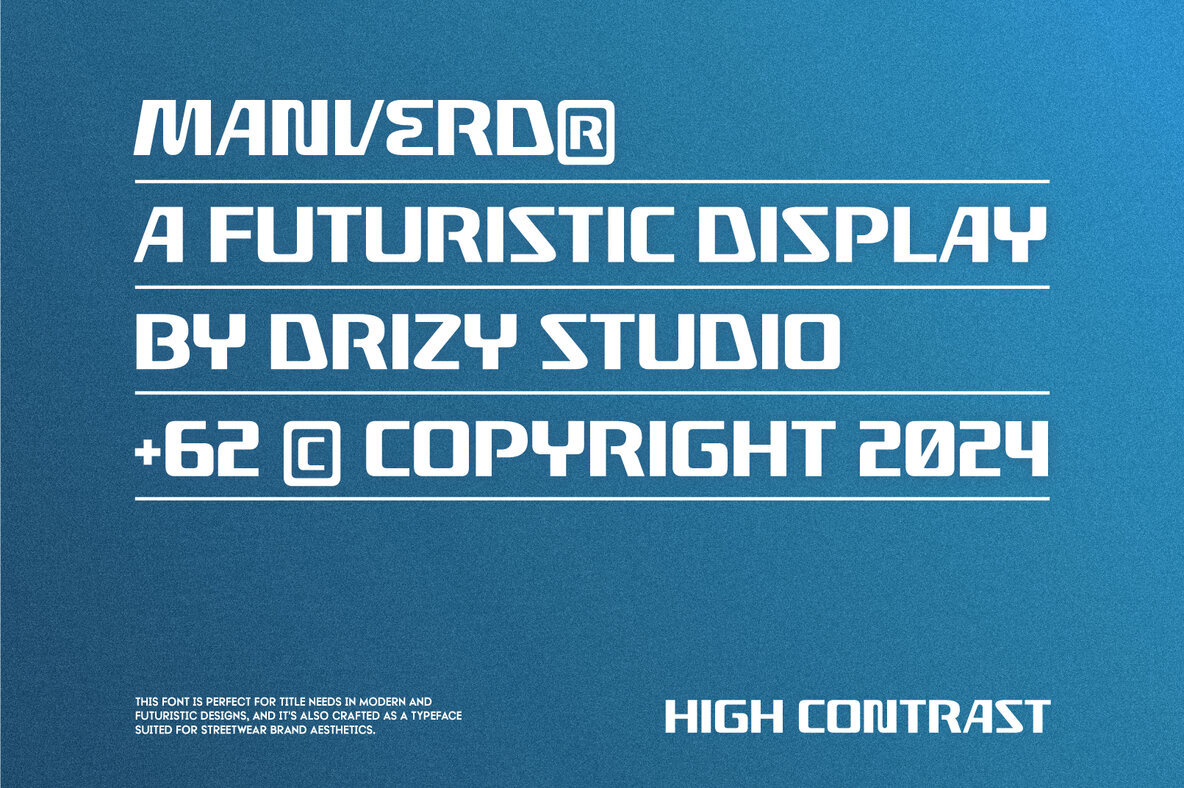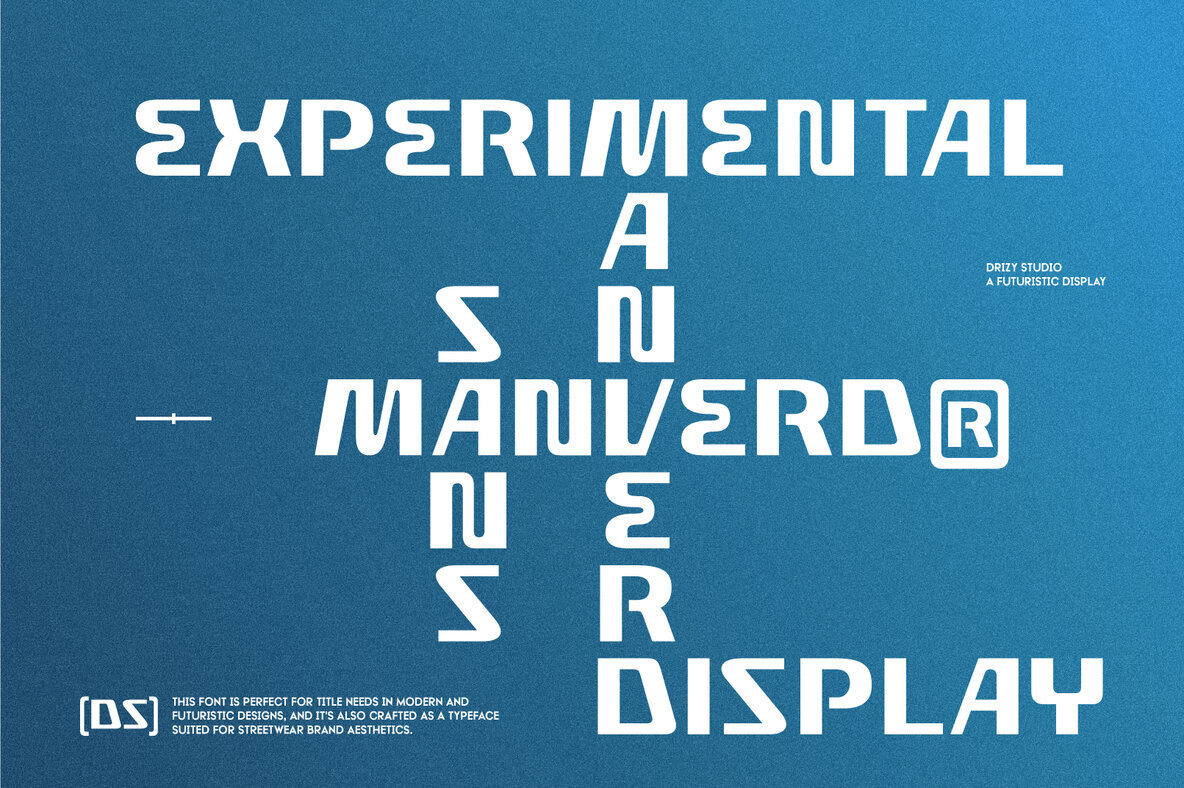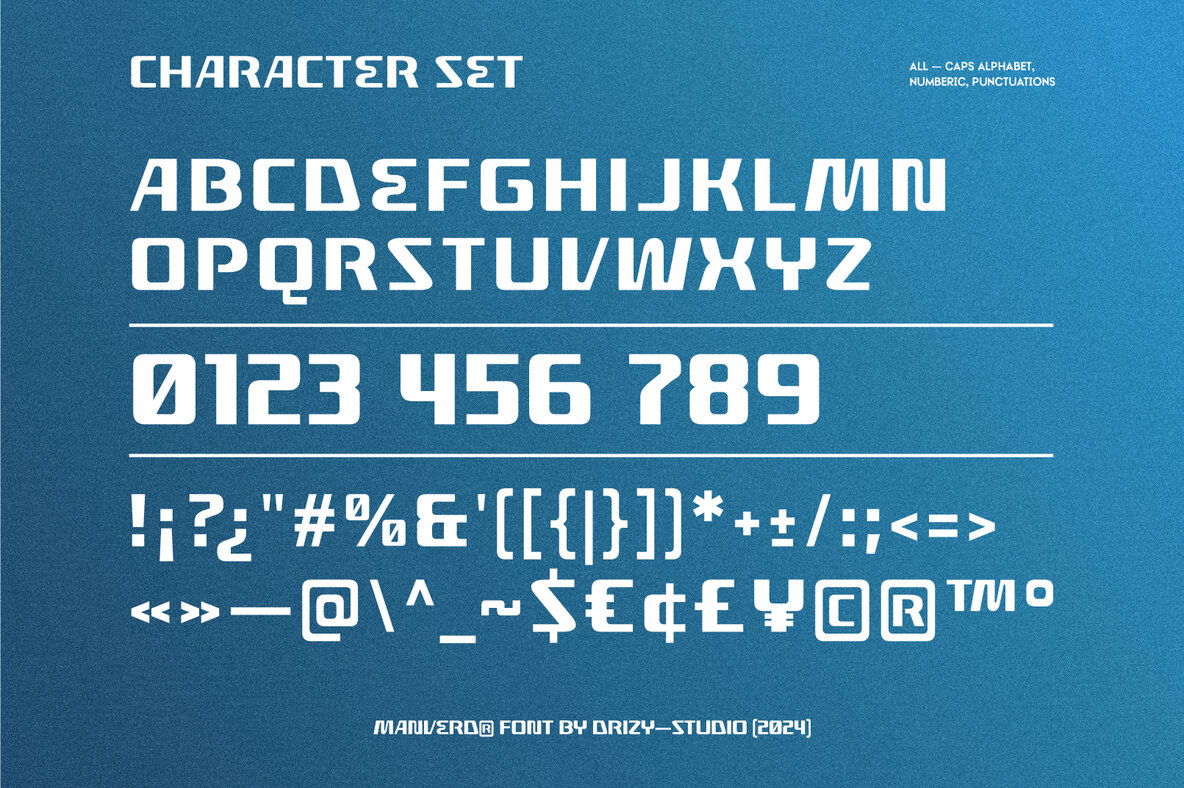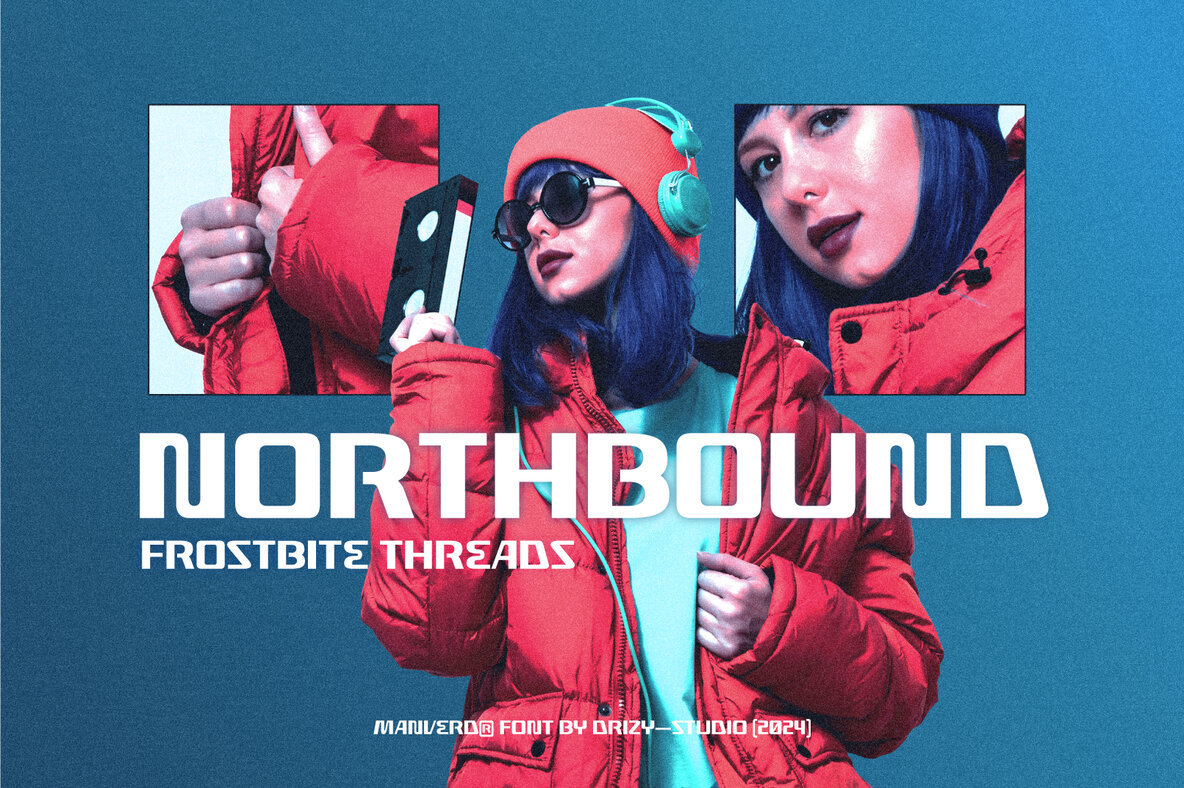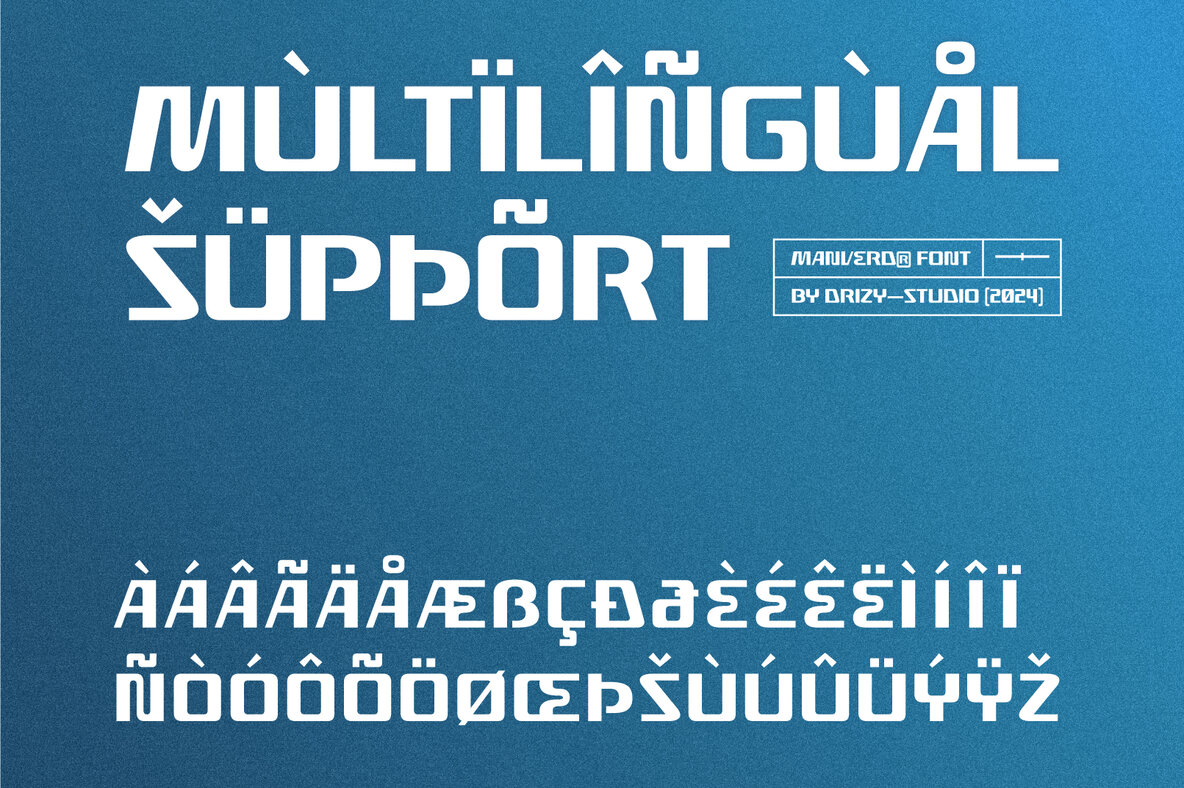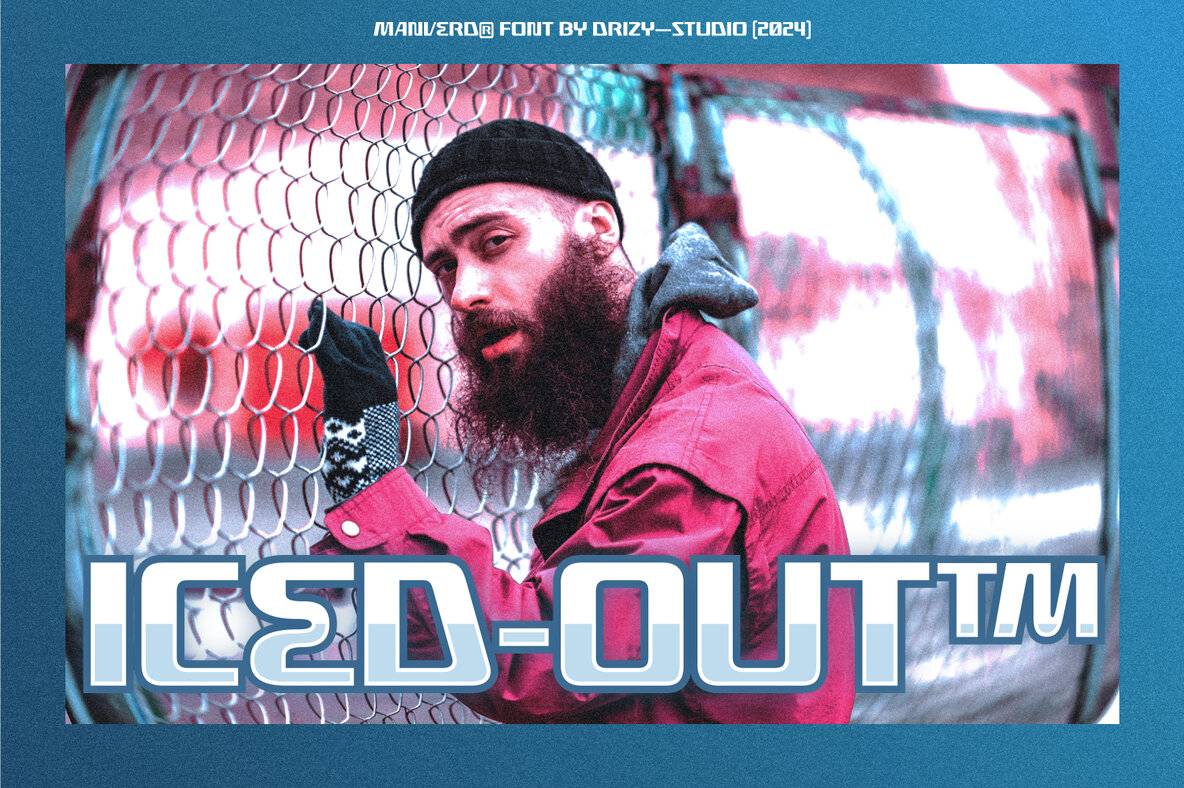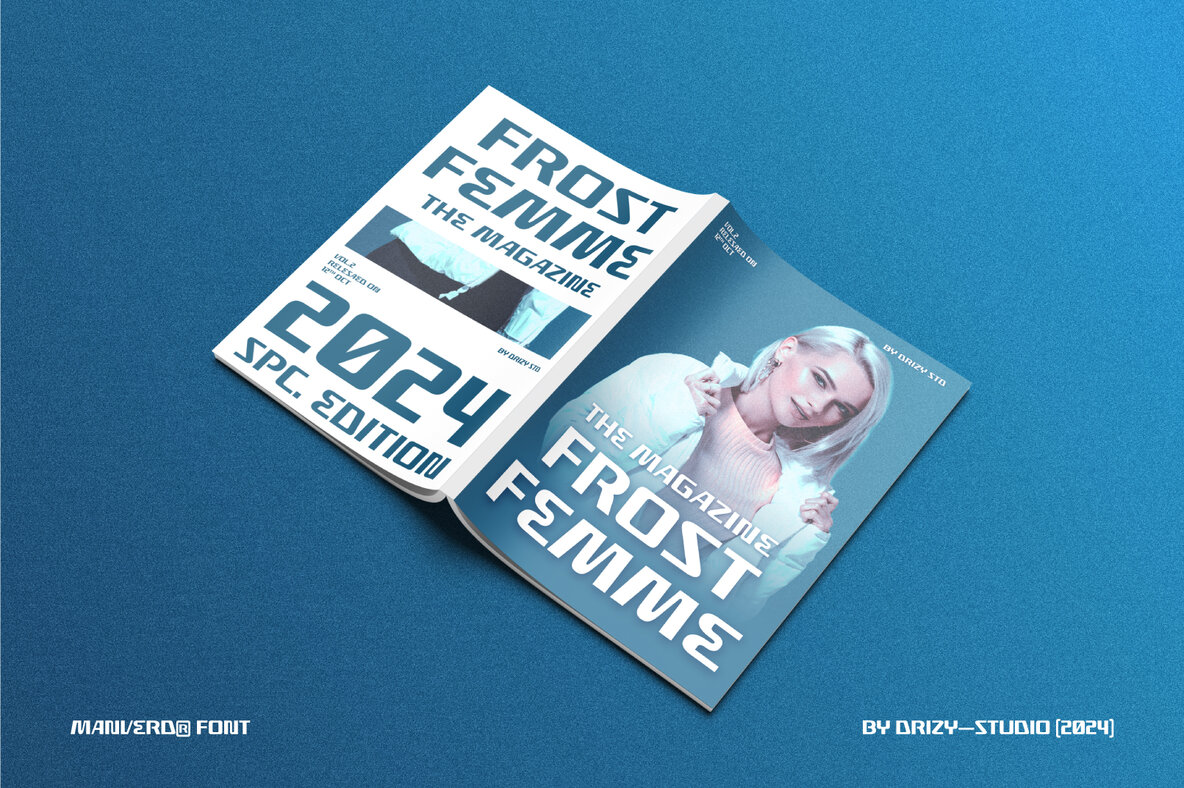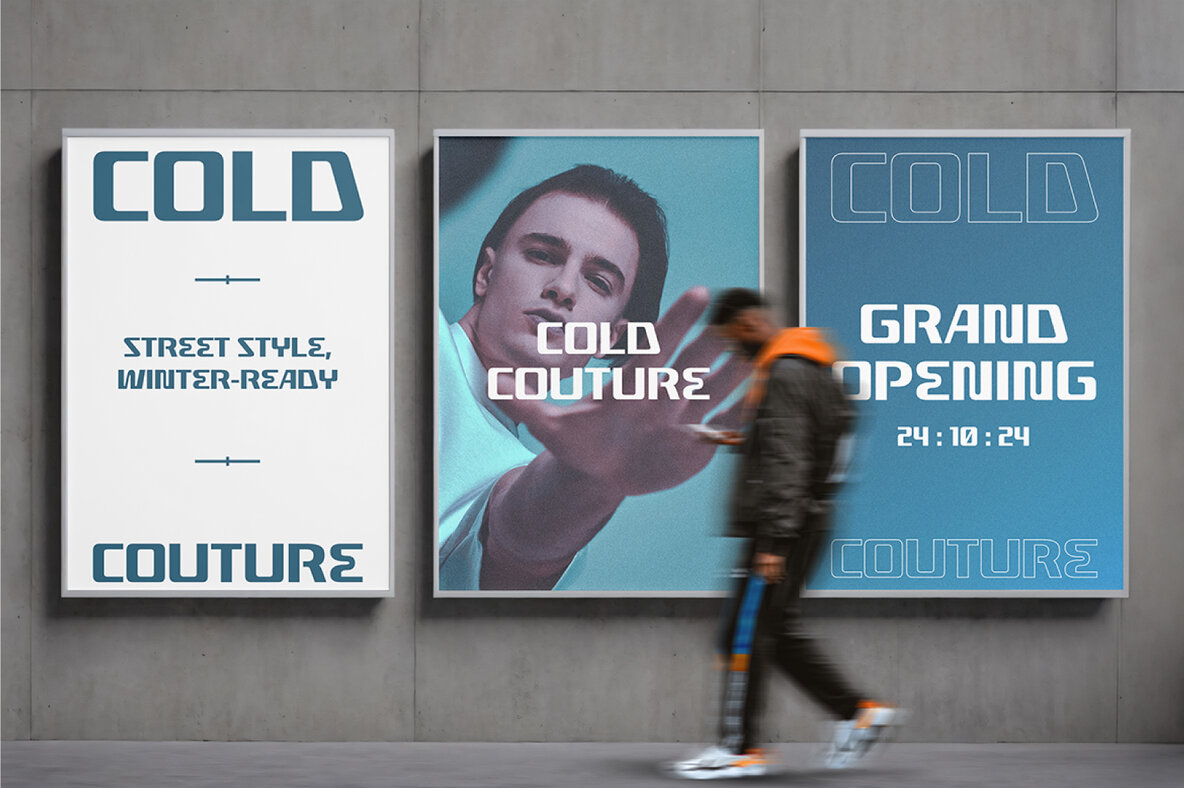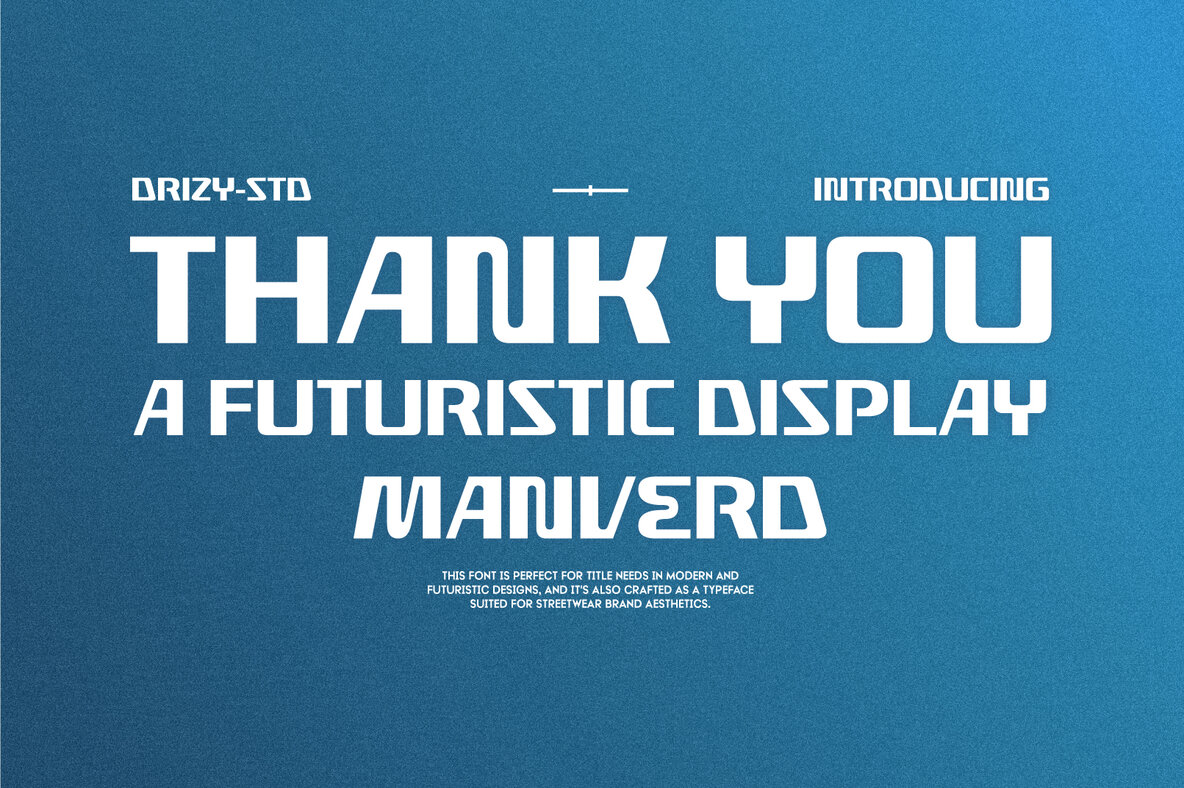
Manverd Font
Manverd Regular
Manverd is a futuristic typeface crafted to reflect the sleek aesthetics of winter streetwear. Its sharp, geometric lines and bold style encapsulate the essence of urban fashion during the colder months. Ideal for apparel branding, fashion editorials, and striking social media content, Manverd provides a fresh, avant-garde touch to any design. Its versatility is perfect for creating impactful headlines, logos, and other projects that demand a modern, high-impact appearance.
Featuring an all-caps character set, punctuation, numbers, and multilingual support, Manverd is designed to accommodate a wide range of visual projects. This font invites designers to explore innovative possibilities and embrace a future-forward approach to street fashion. Expand your creative boundaries and let Manverd redefine how you convey modern style in your work.